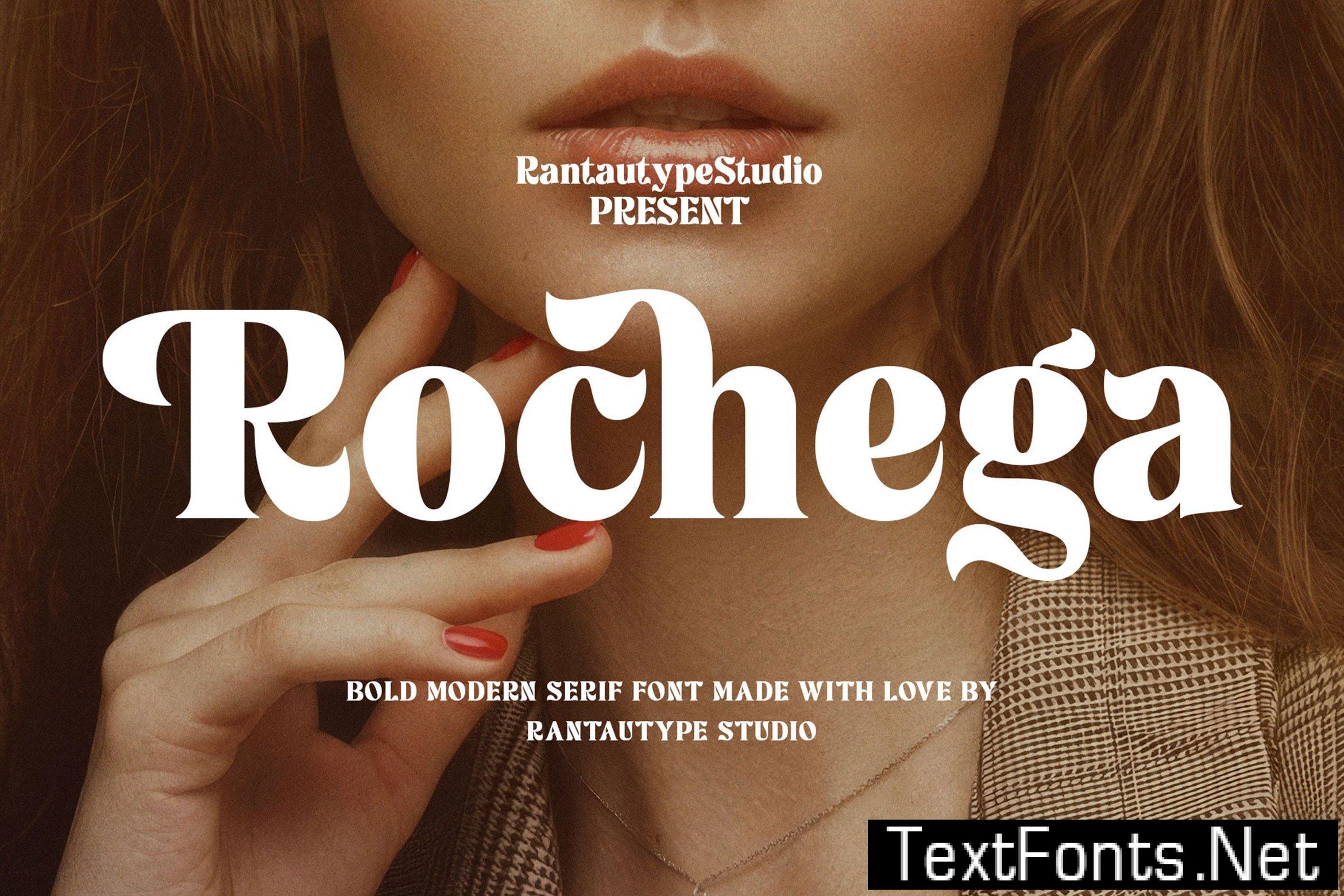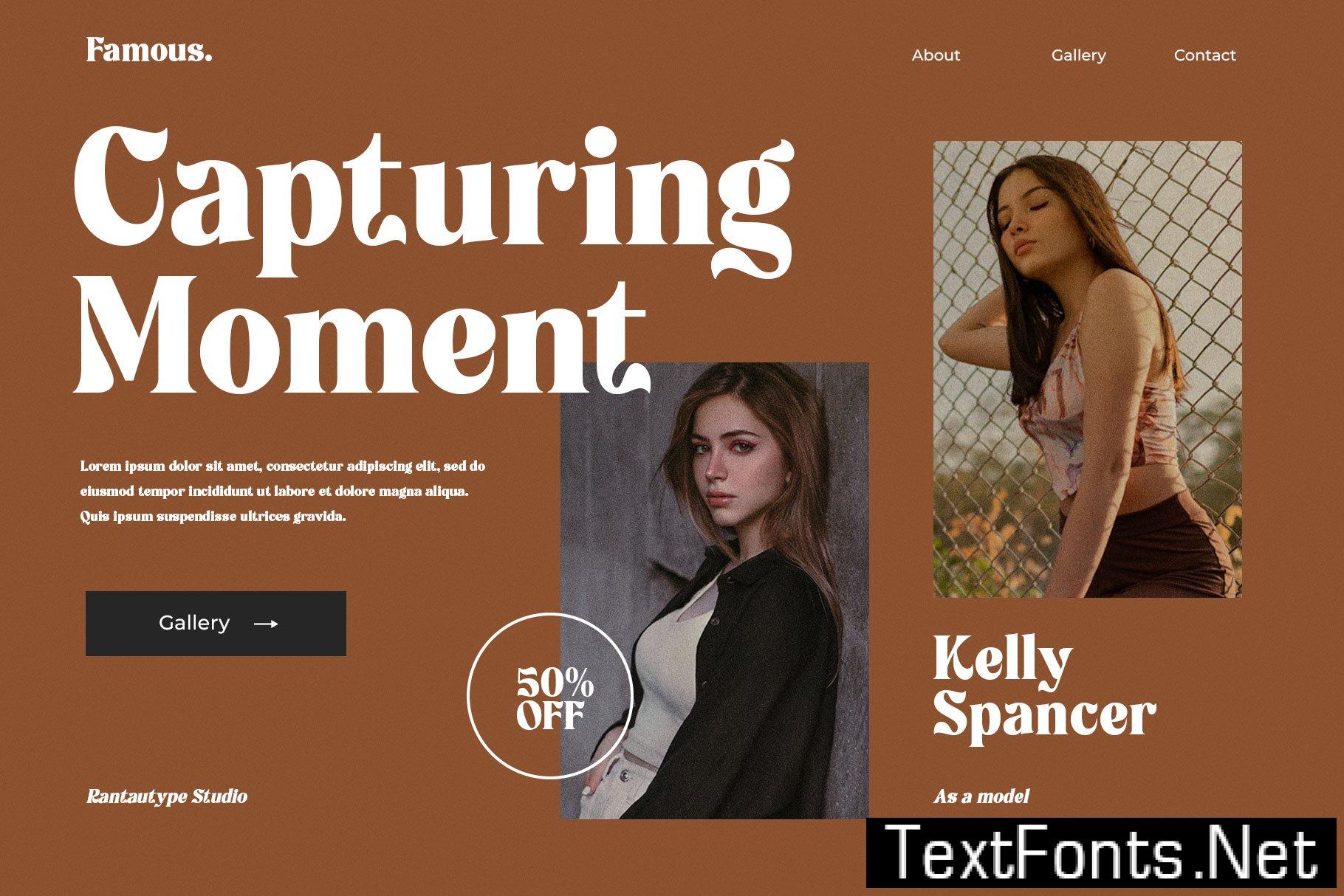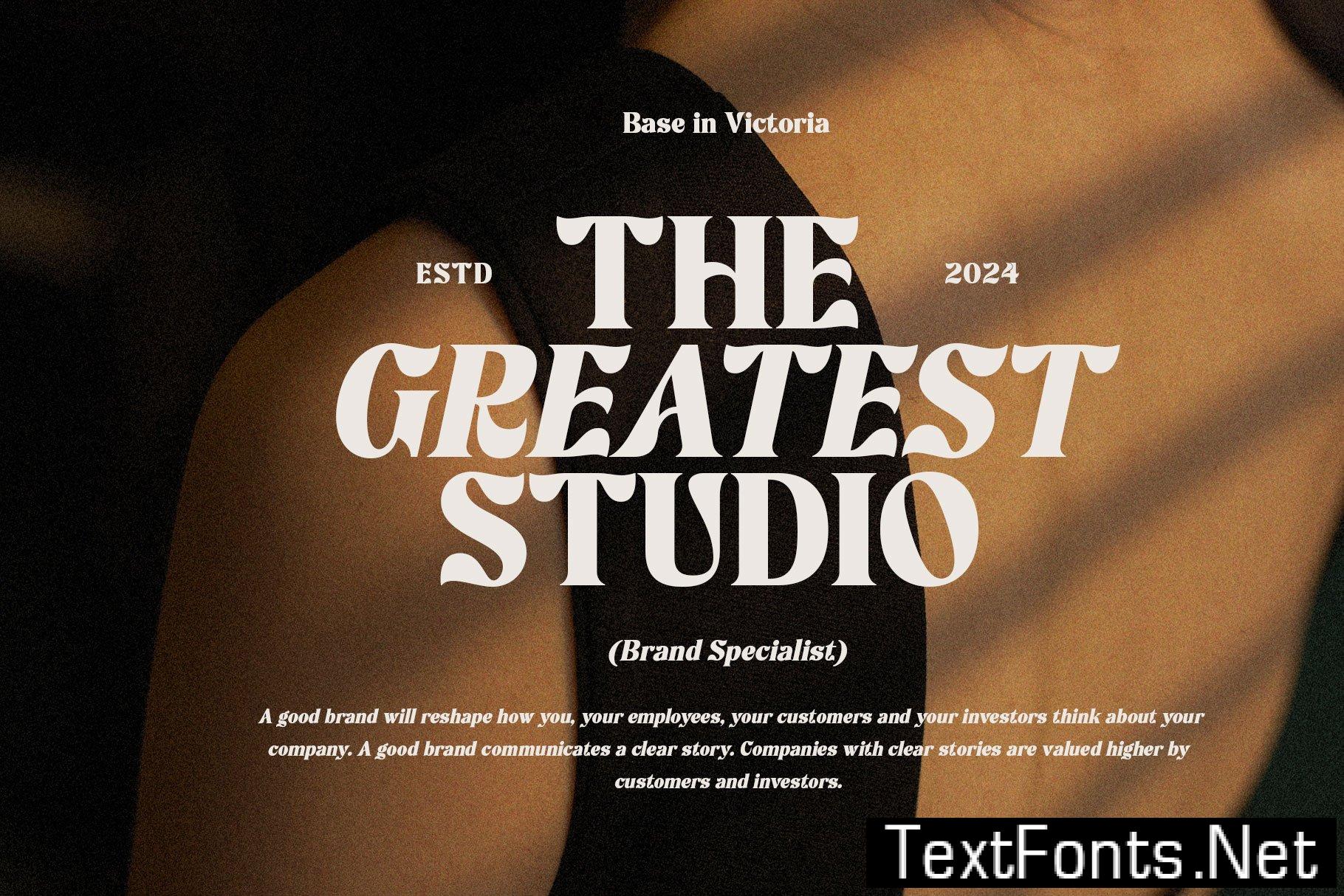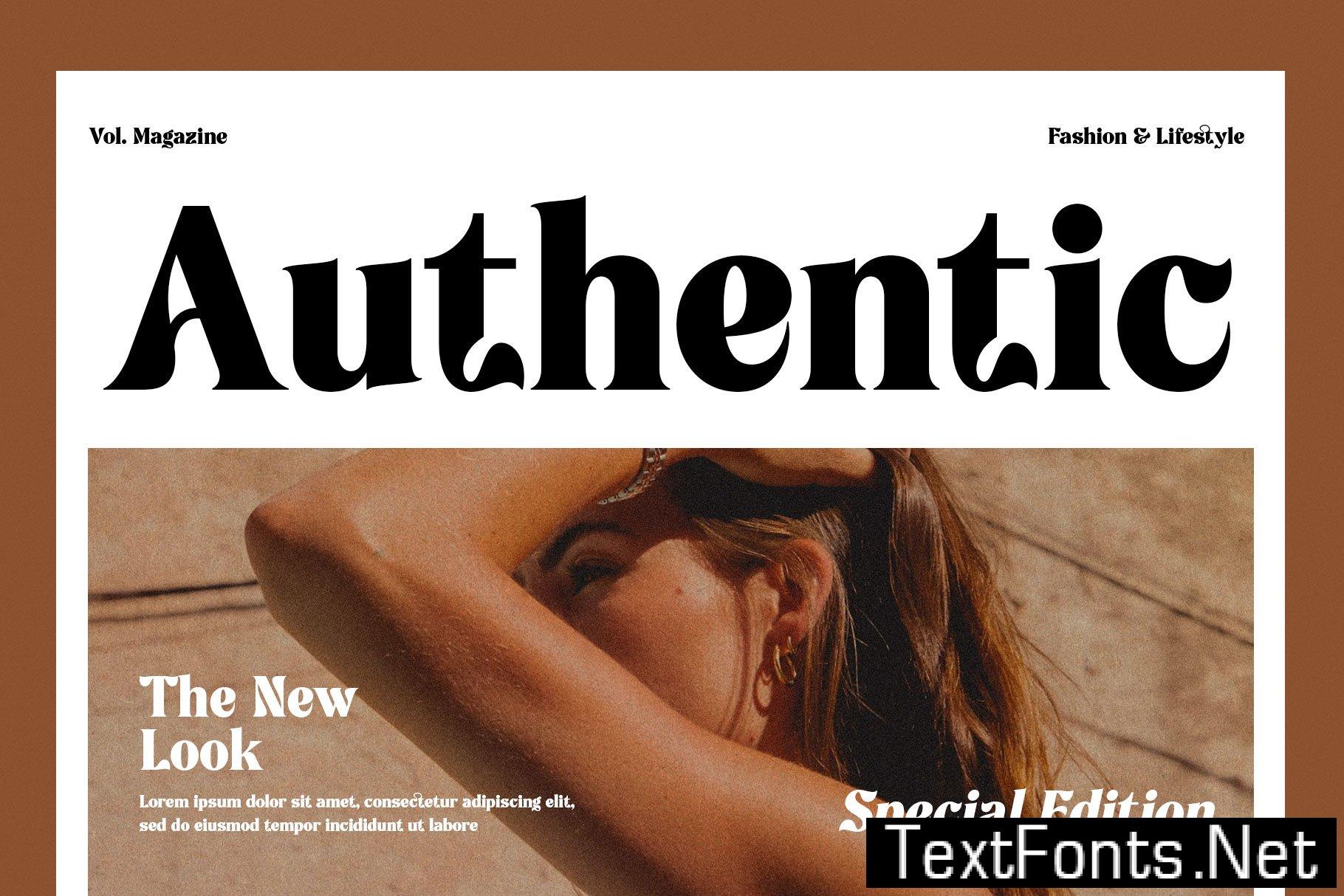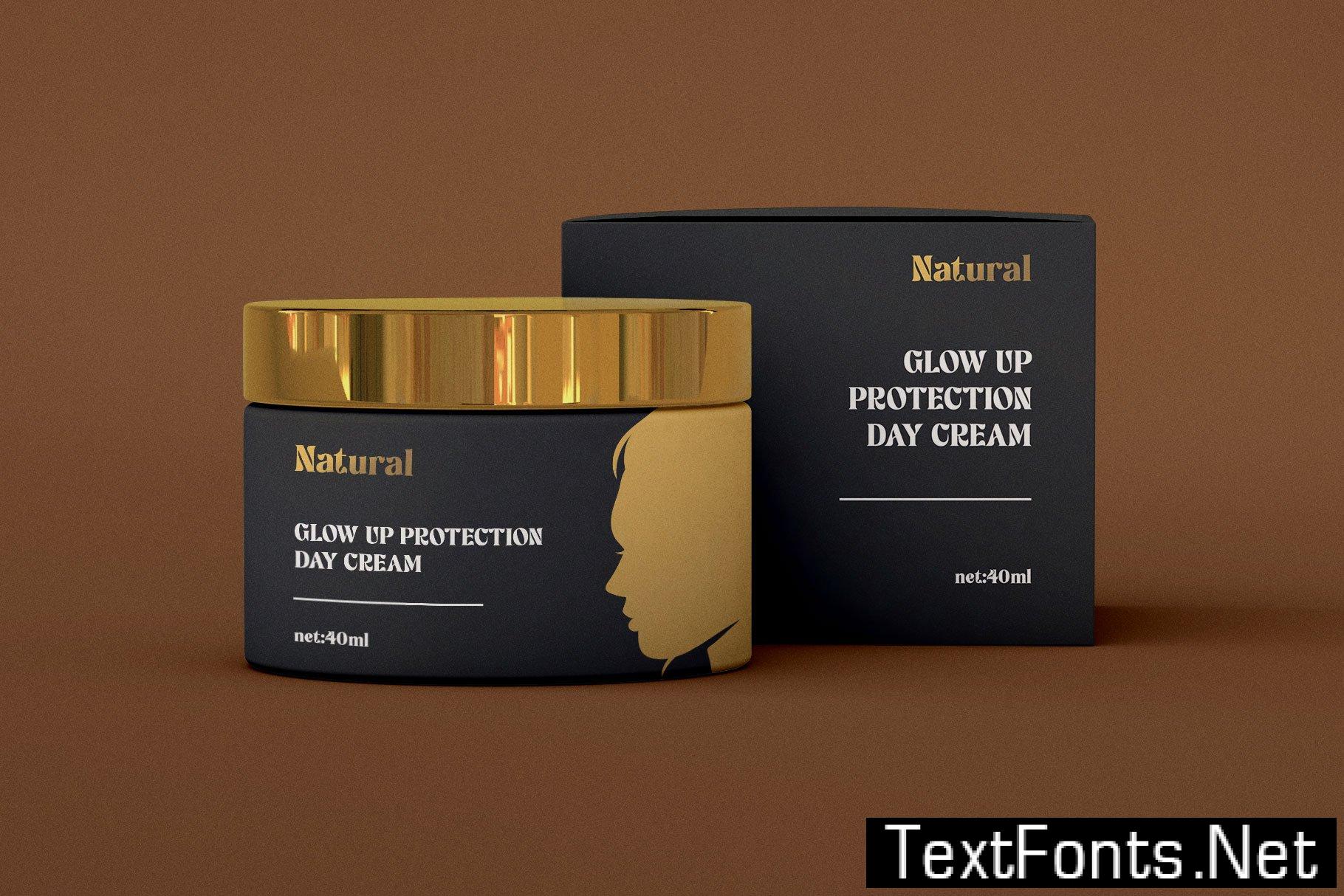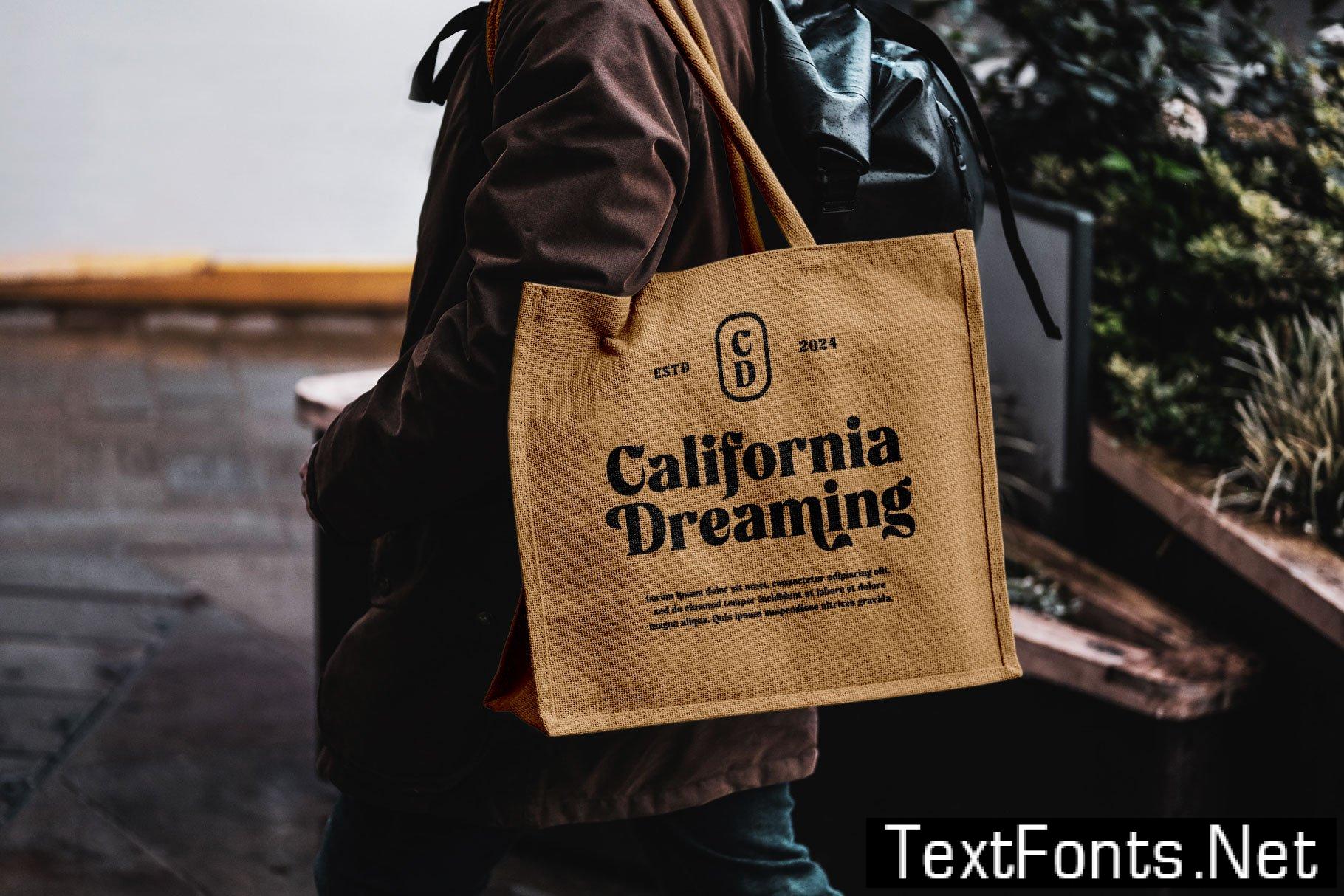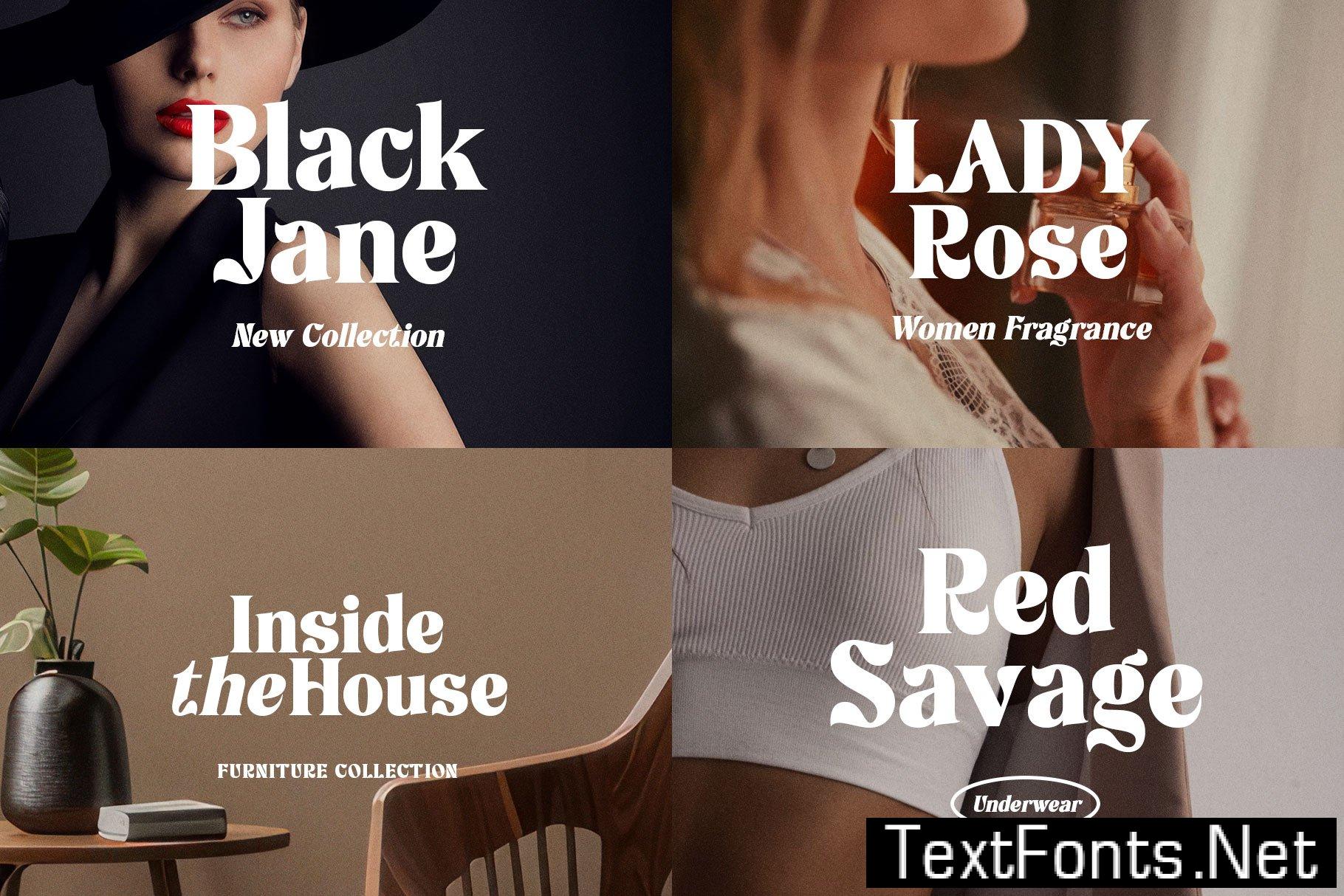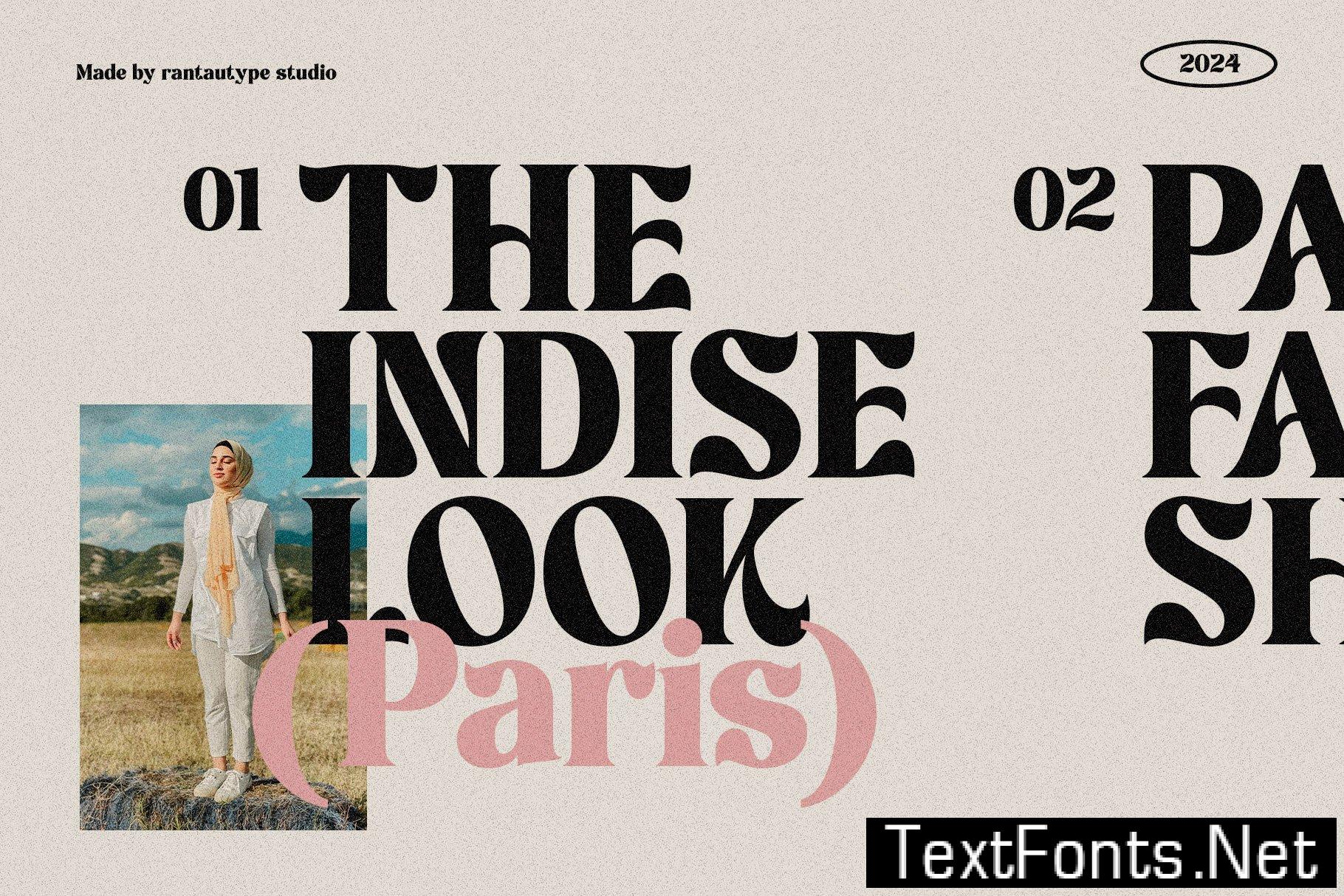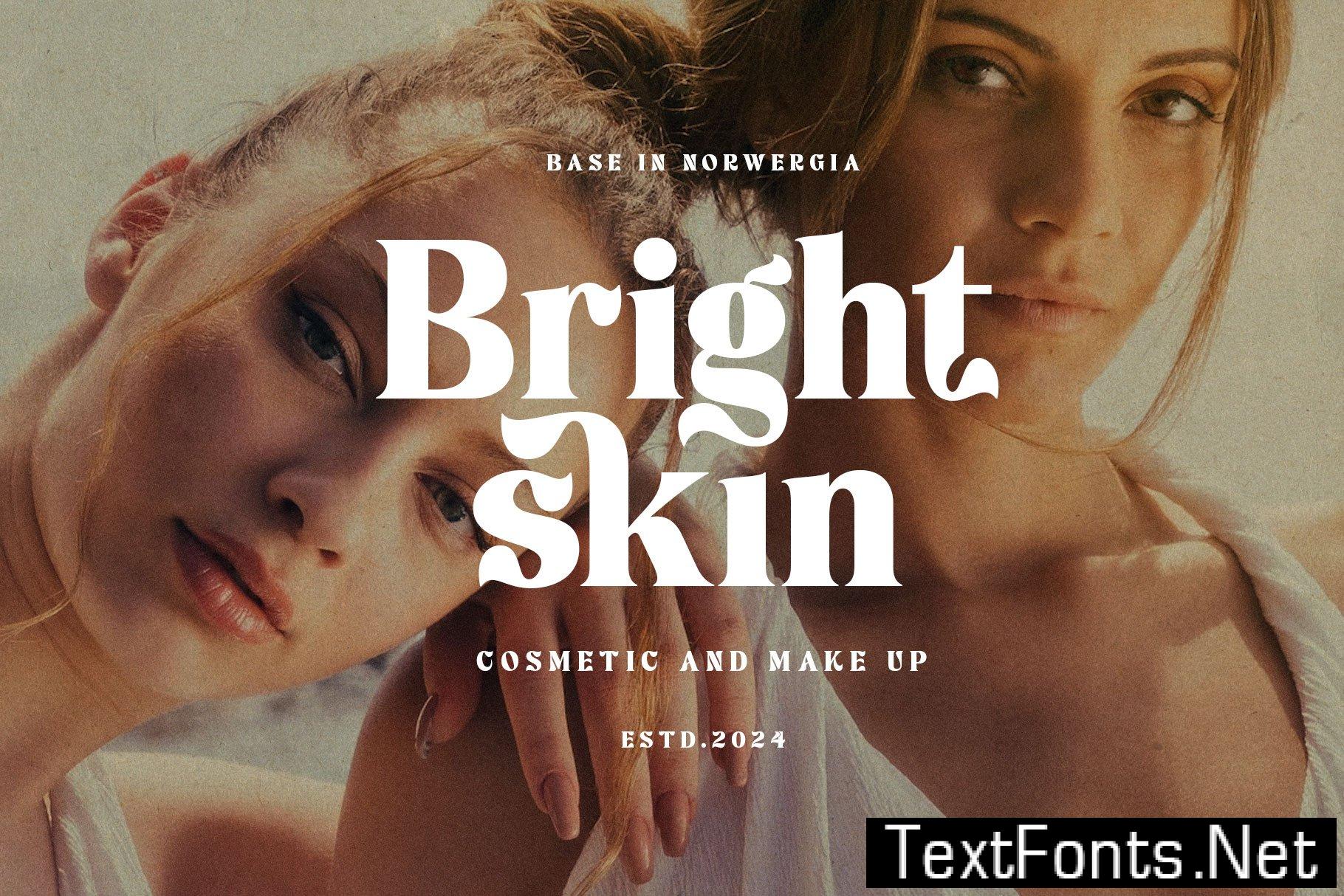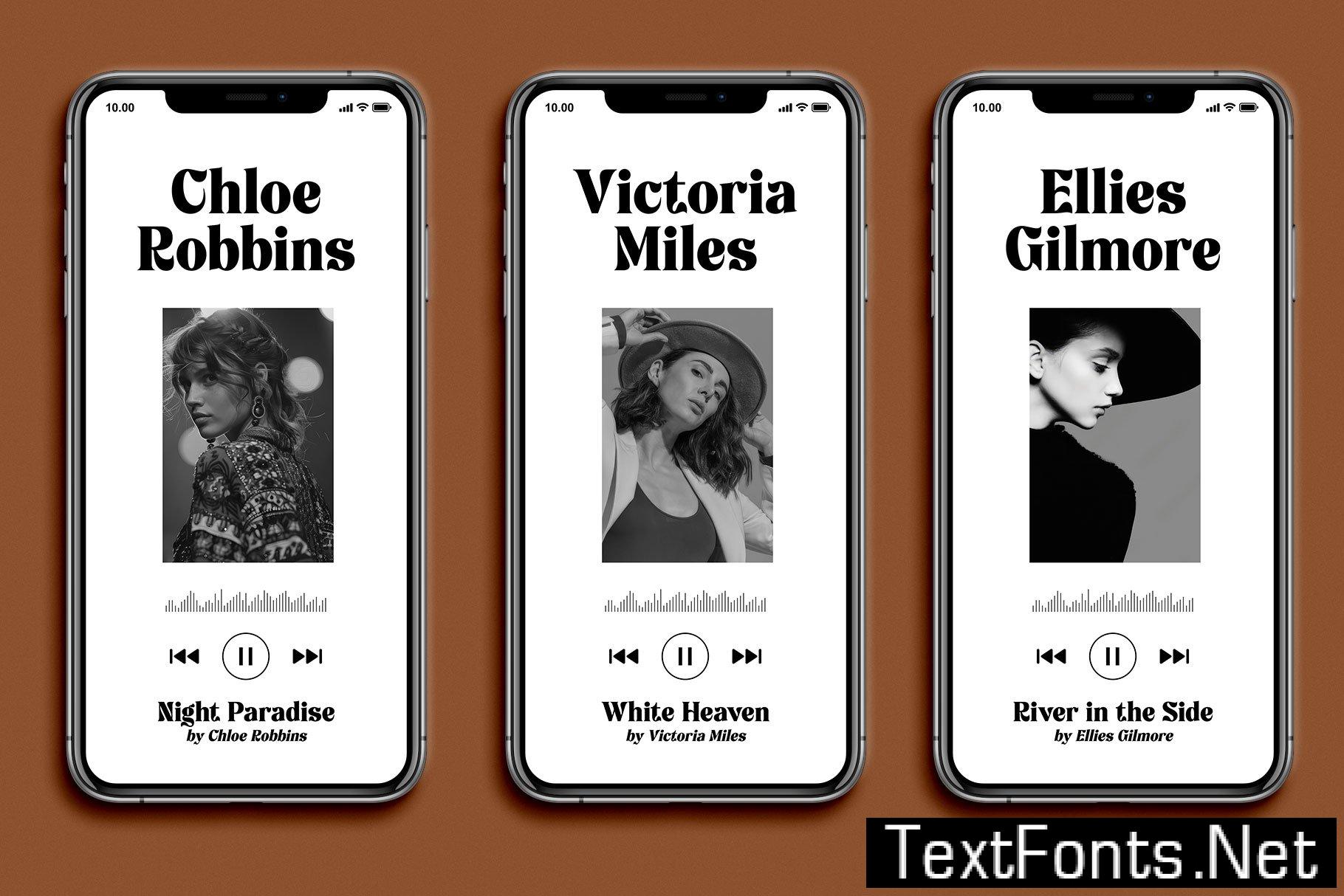
Rochega is modern contrast condensed display with bold stroke and elegance character. Rochega come to make your brand stand out with the feature.
Rochega is a beautiful choice for any creative endeavor, creating elegant, modern, chic, lifestyle design such as logotype, title, cover, branding, invitations, wedding designs, display and magazine, social media posts, advertisements, printed quotes, product packaging, corporate brand, product designs, labels, photography, watermarks, special events and any other project with retro or vintage touch.
* Alternate and Ligature